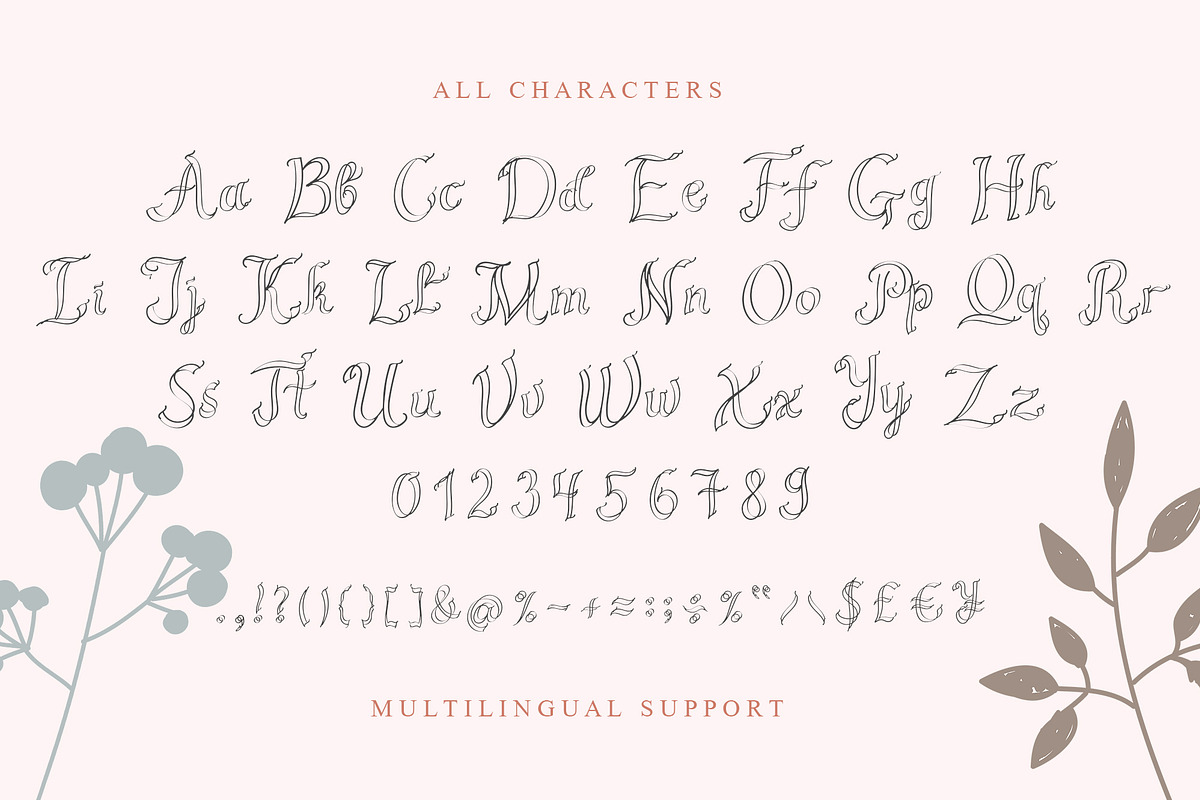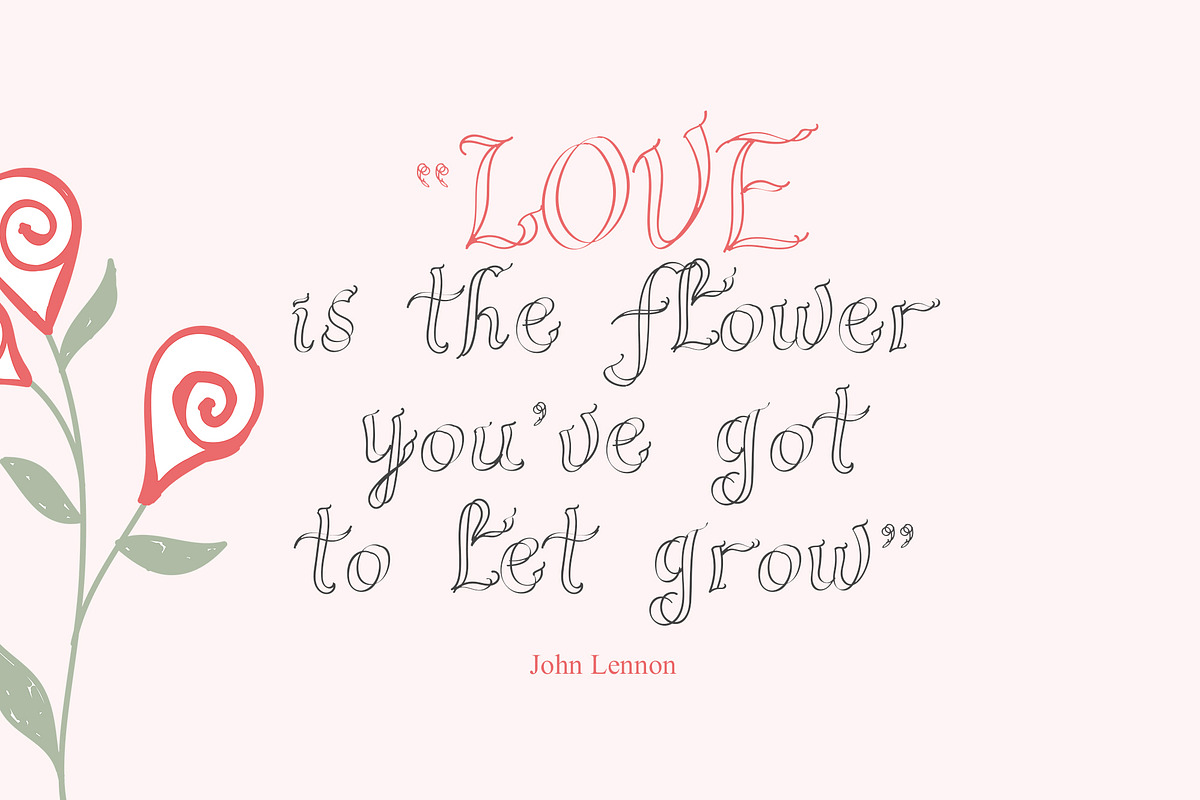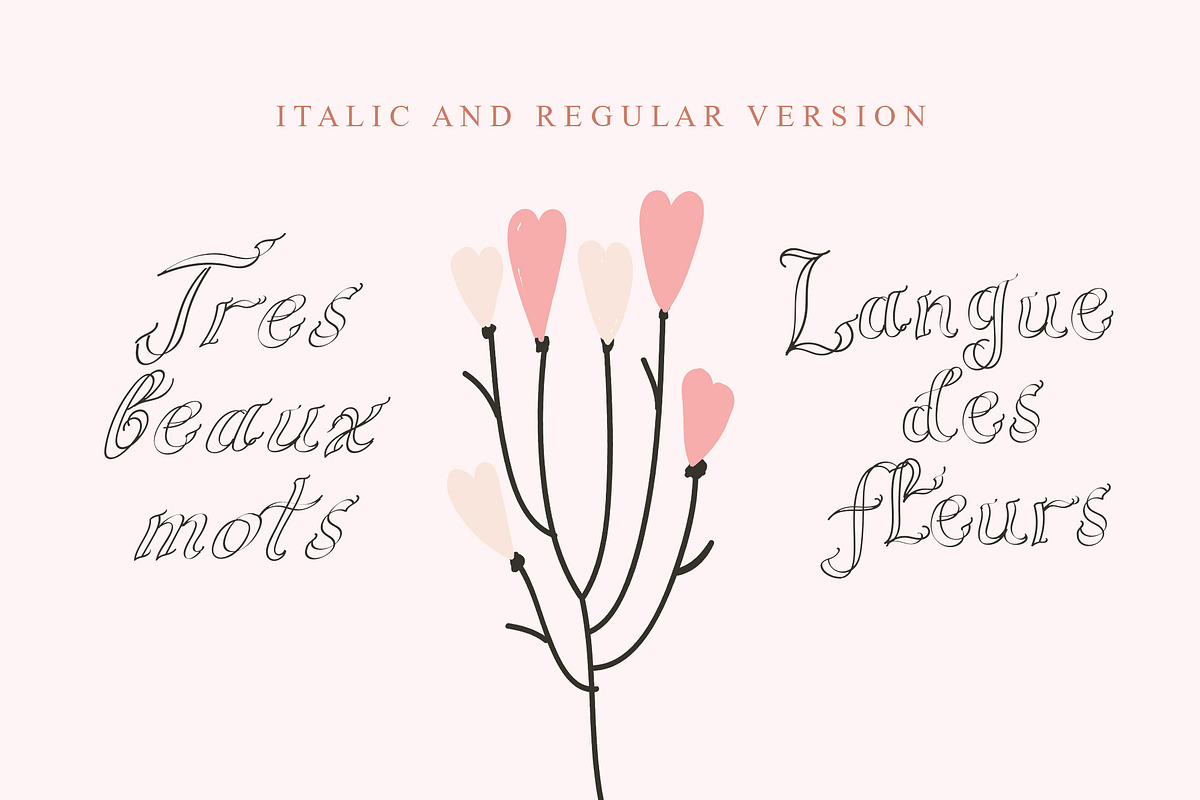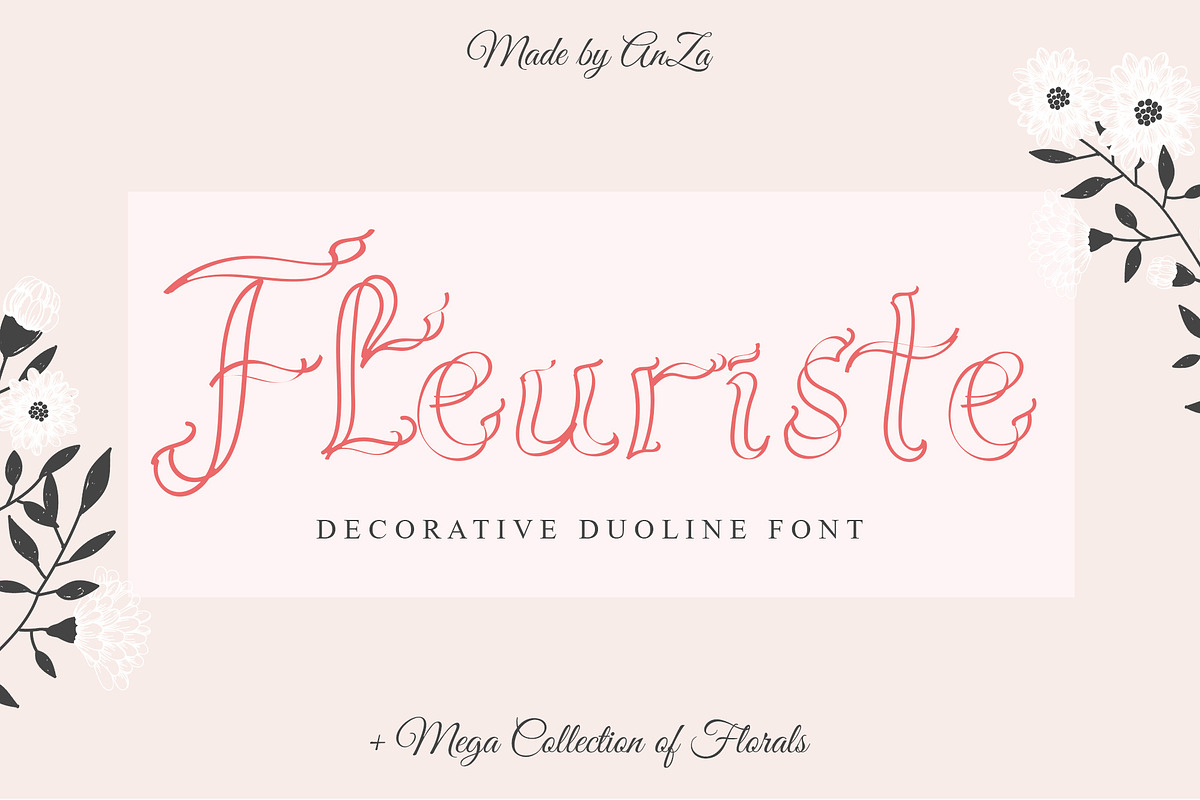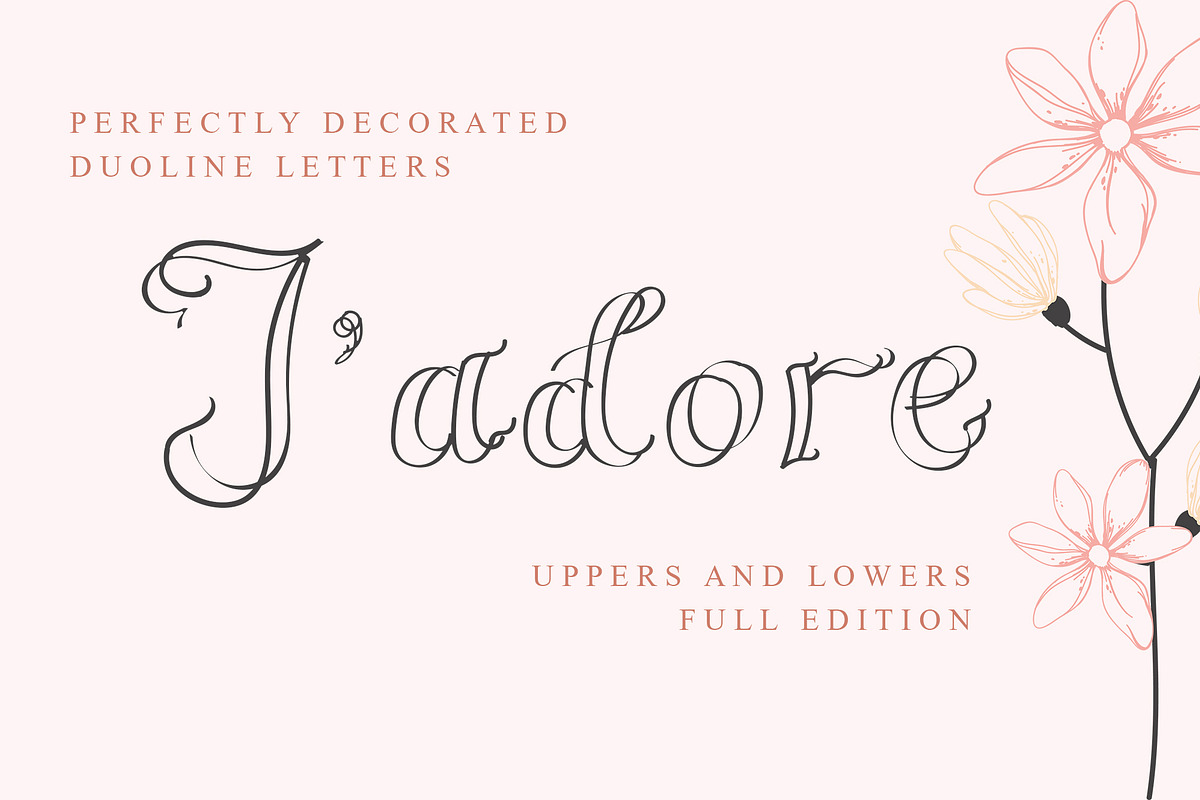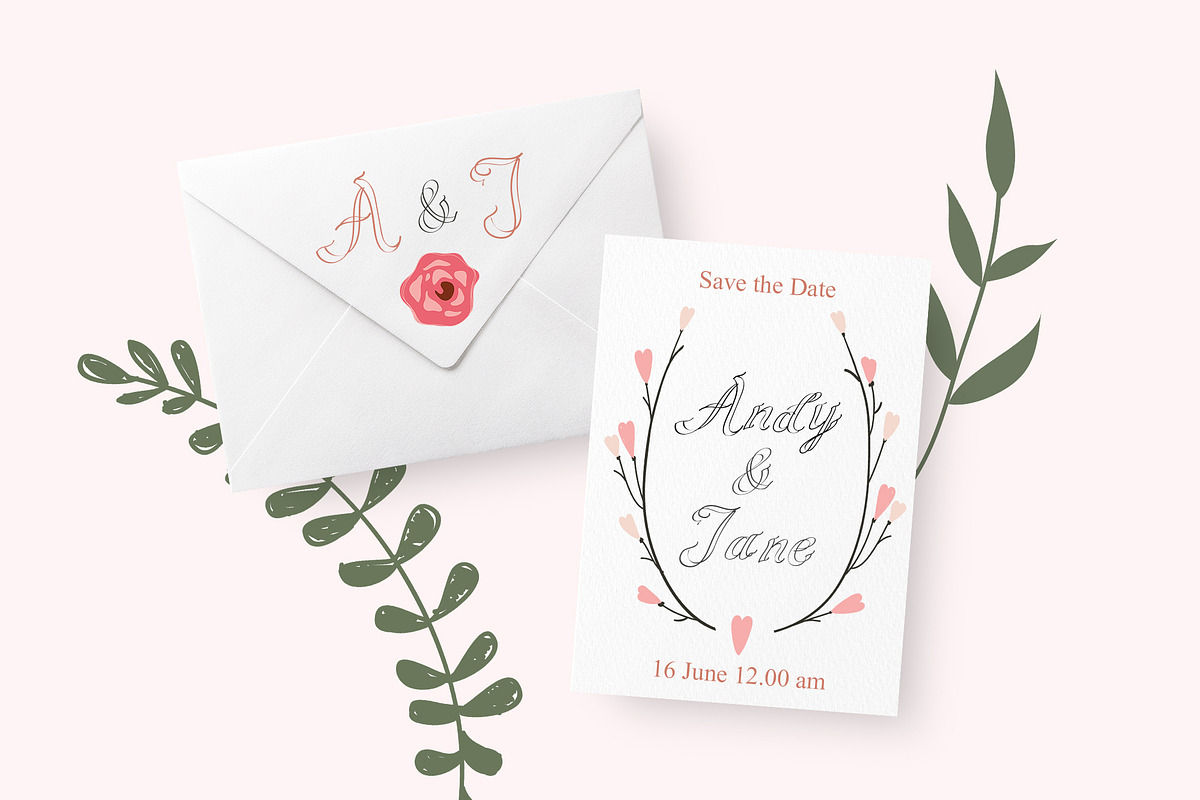
Fleuriste Duoline Font
NEW Fleuriste handwritten duoline decorative font with hand drawn leaves, flowers, wreaths ans bouquets reflect the warmest feelings and colors of summer season. It will help you to create special and touching typographical design for every day or the happiest day in life, like birthday or wedding day.
Fleuriste font has regular and italic versions. It is perfect for multiple contexts. Works great in posters, logos, headlines, packaging, advertising, branding and so much more. This font will easily help you to create the best romantic and elegant designs. Also customizable for monograms, logos, tattoo, restaurant budges, frames for website or print design for greeting cards. Just make your projects trully hand-painted realistic and natural.
Fleuriste and Fleuriste Italic fonts have uppercase and lowercase letters, numbers & basic punctuation, multiligual support (French, German, Italian, Norwegian, Portuguese, Spanish, Swedish, Swiss German). Commercial use is allowed for unlimited projects and sales, but you may not use the fonts in templates or for sale/free.